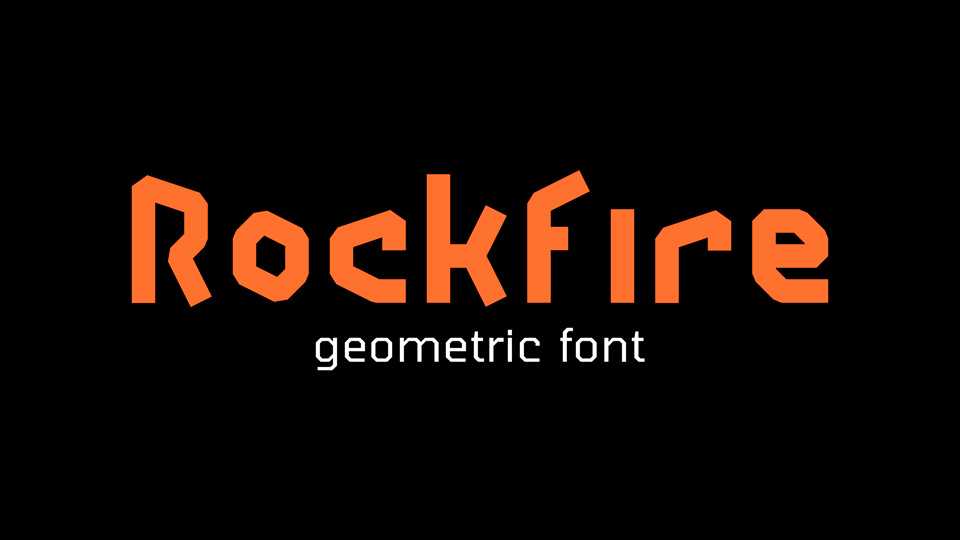
Download Rockfire font, a geometric font inspired by wood log composition. Rockfire font is suitable for branding, merchandise, posters, headlines and other creative projects.